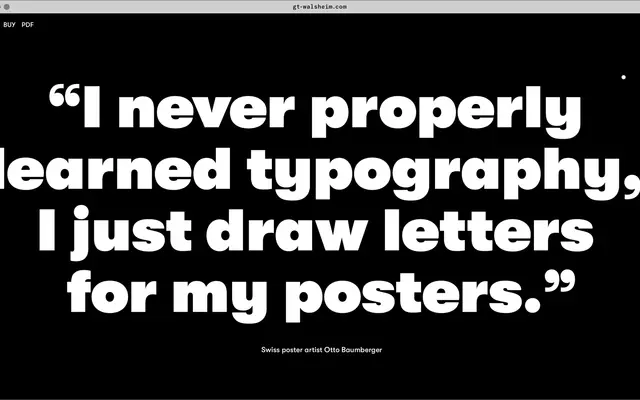
GT Walsheim
Grilli Type · Noël Leu · 2009
GT Walsheim specimen from Grilli Type
Noël Leu's friendly geometric sans inspired by Otto Baumberger's 1930s Swiss poster lettering, in Standard and Condensed widths.
A geometric sans by Noël Leu, released in 2009 and updated in 2017 to 32 styles. Grilli draw it from Swiss poster designer Otto Baumberger's 1930s lettering, framing it as friendly but precise. Eight weights from Ultra Light to Ultra Bold come with Obliques in both Standard and Condensed widths, and the typeface supports all Cyrillic languages, which makes it a heavyweight identity workhorse.
Grilli describe it as inspired by the lettering of Swiss poster designer Otto Baumberger from the 1930s, a friendly but precise typeface that supports all Cyrillic languages.